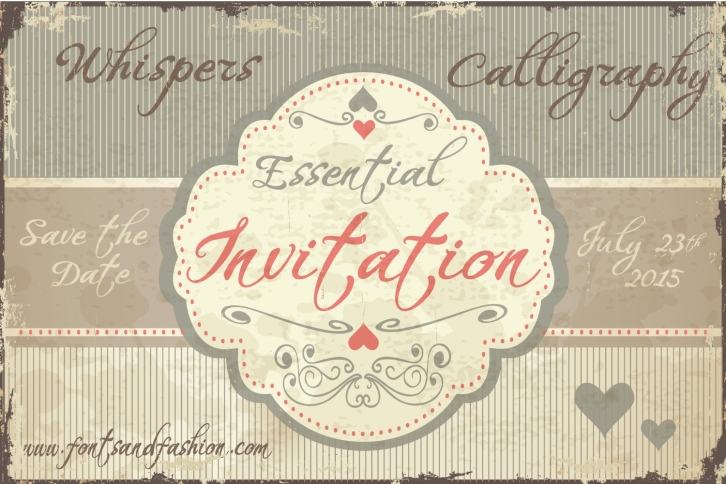
Whispers Calligraphy Essential is a trendy and unique font with an authentic style. It was designed by Fontsandfashion and it's a great choice for creative people who need such a font. It was released on October 6, 2018 and the file size is 8.29 MB. Whispers Calligraphy Essential will add an organic vibe to any design idea!